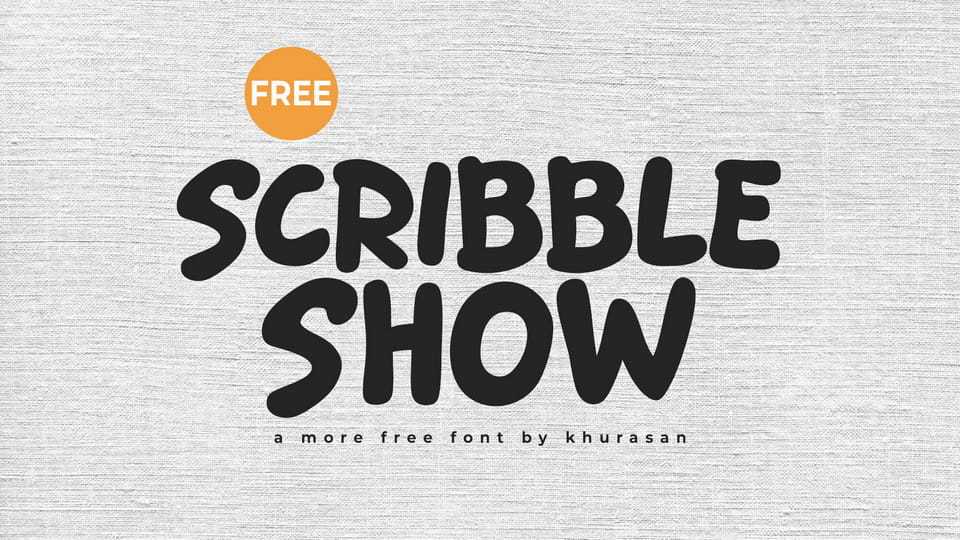
Download Scribble Show font, a casual, hand-drawn display typeface designed to feel spontaneous and creative. Its sketchy, uneven strokes create an informal and artistic mood, making it perfect for expressive and relaxed designs.